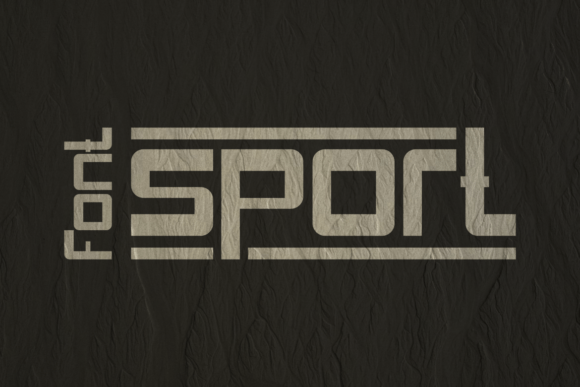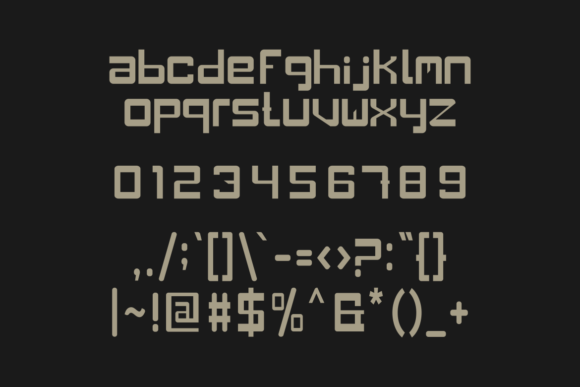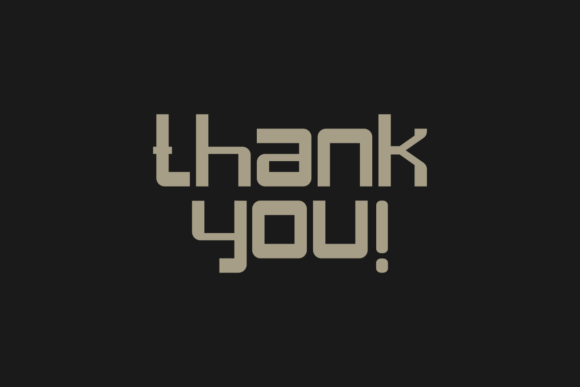
Introduction to Pessoq Font
As a designer, have you ever found yourself staring at a blank canvas, trying to come up with the perfect font to elevate your creative project? The search can be overwhelming, but what if I told you there’s a game-changing display font that’s about to revolutionize your design process?
Enter Pessoq Font, a stunning and modern display font that’s sure to add a touch of sophistication to any project. With its sleek lines and high-quality design, Pessoq Font is the perfect addition to any creative endeavor. Whether you’re working on a logo, brochure, or website, this versatile font is sure to make your design stand out.
Key Features of Pessoq Font
- Unique characteristics include a modern, sleek design and a wide range of customizable options.
- Suitable for various design projects, including digital art, graphic design, and web design.
Honest Review: Pessoq Font
I recently had the chance to work with the Pessoq Font, and I must say it’s a fantastic addition to any designer’s toolkit. This font is perfect for creative projects where a unique touch is needed.
One of the standout features of the Pessoq Font is its high quality and versatility. It comes in a variety of weights and styles, making it easy to use in a range of design contexts. I particularly enjoyed using it for headings and titles in my design projects.
- ⚠️ Some users may find the font’s unique style challenging to work with
Overall, I’m impressed with the Pessoq Font and would recommend it to designers looking for a high-quality, unique font for their creative projects.
Common Use Cases for Pessoq Font
The Pessoq Font is ideal for creative projects that require a high-quality, unique font. Some common use cases include branding, marketing materials, and digital design projects. The font’s transparent background feature makes it perfect for designs that require a clean and minimalist look.